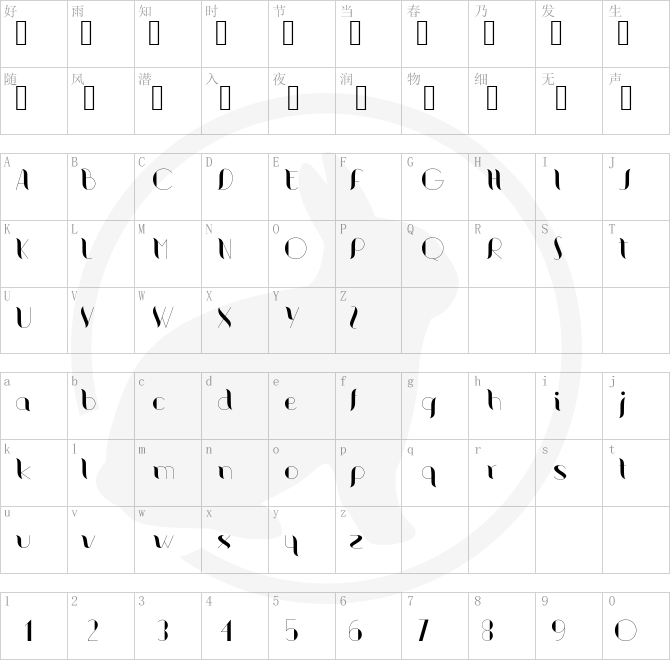
- Font Name:Valerie
Valerie-Medium.ttf is a very beautiful artistic font, Valerie-Medium.ttf is widely used in the design and printing of various books and pictures,Valerie-Medium.ttf has a strong visual impact,Valerie-Medium.ttf is a commonly used font in newspapers, magazines and books, and is used in posters, e-commerce Poster design, store design, logo design, font design and other fields.Valerie-Medium.